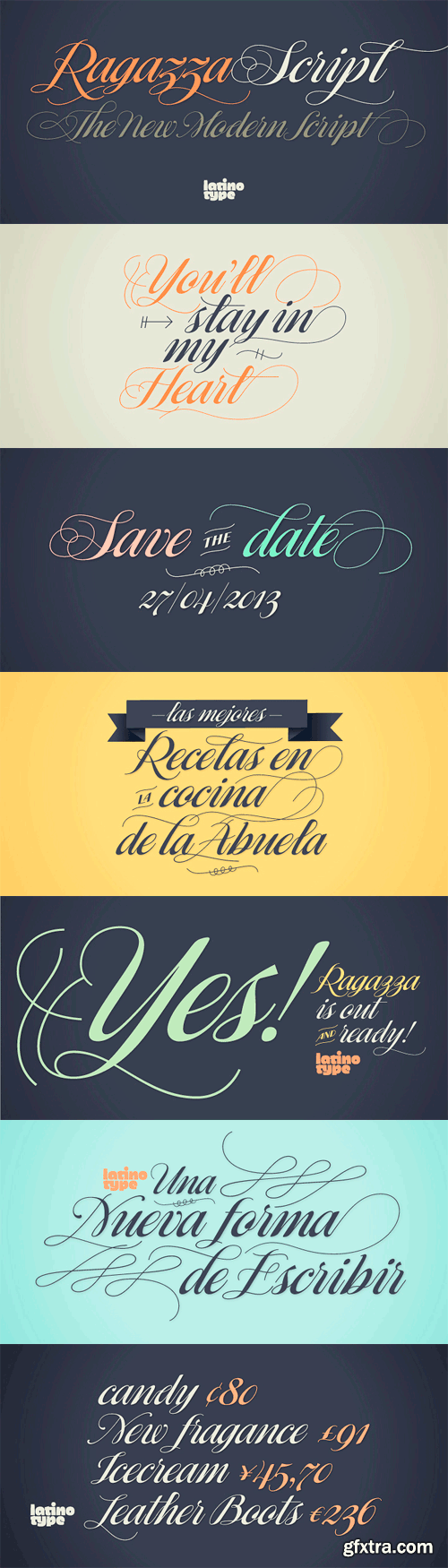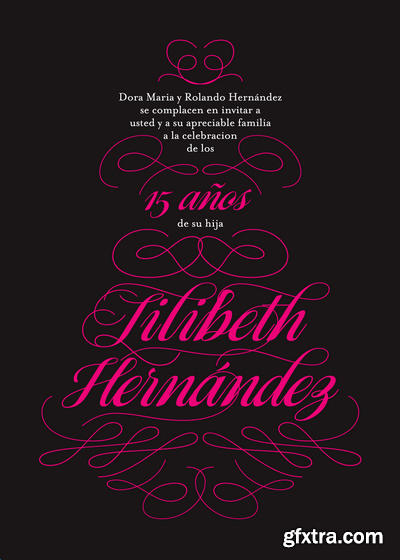
Ragazza - Handwriting Script
- Ragazza Script isn’t just another display typeface. It honors the greatest handwriting skills but in a different way. Although It doesn't represent any traditional calligraphy style, it is still part of that expressive world. With more than 1000 glyphs, and taking advantage of the Opentype features, Ragazza is full of personality. When in use, it gives a feel very close to ornamental Copperplate mixed with some kind of modern 'high-contrast' typeface. Lots of alternates, swashes and initial capitals are the spine of this face, assuring almost infinite combination possibilities. The early forms that would eventually lead to what Ragazza is today, began as a college project –around 2006– in the context of the ‘Hyperfuente’ exercise developed during Typography 2, chair E. Longinotti, at the University of Buenos Aires. But that seed would never stop growing. Since then a lot of work had been made to take that initial project to a professional quality level. Ragazza Script is perfect for headlines and short phrases. It is the brand new modern script, designed by Guille Vizzari and published by Latinotype.